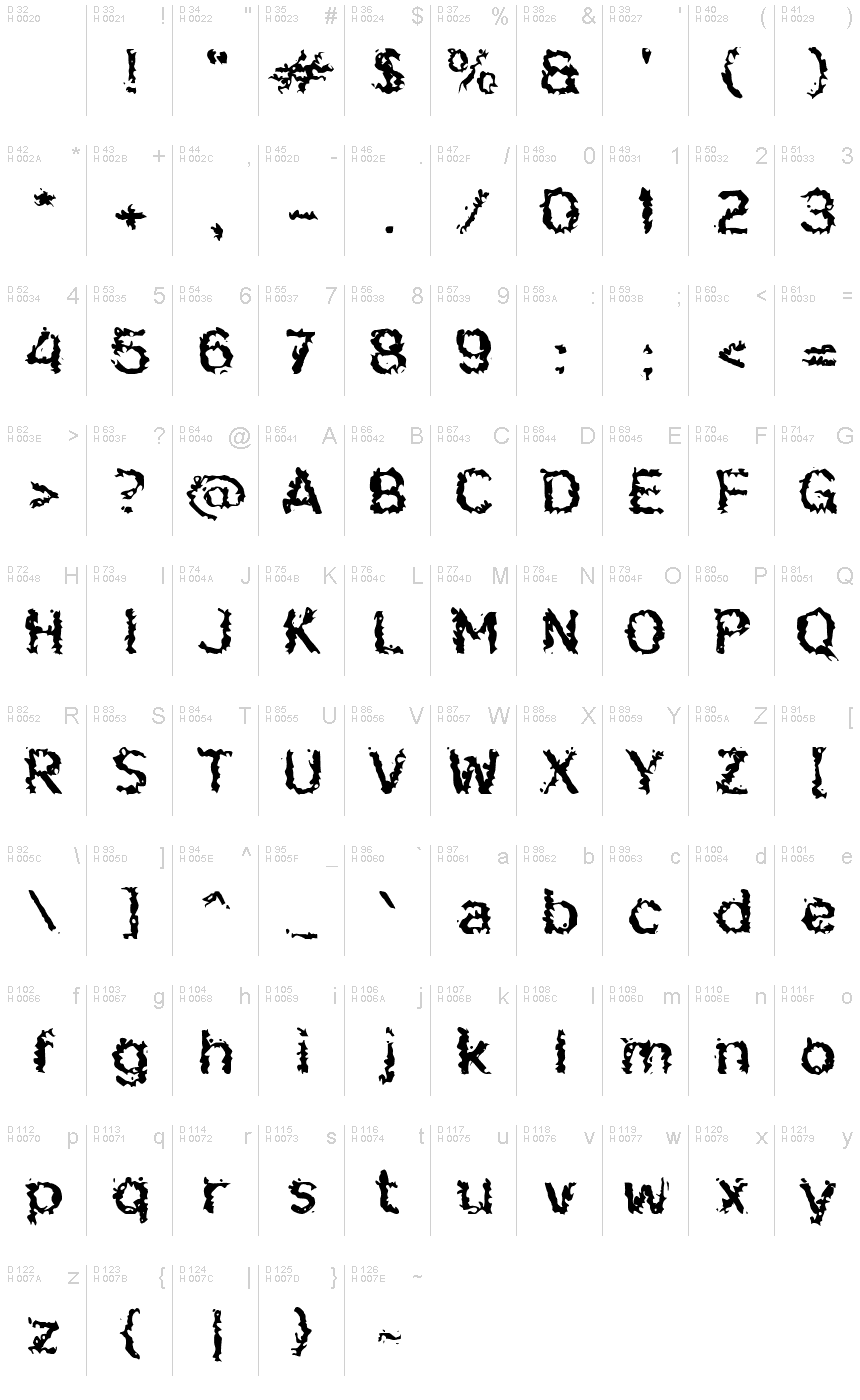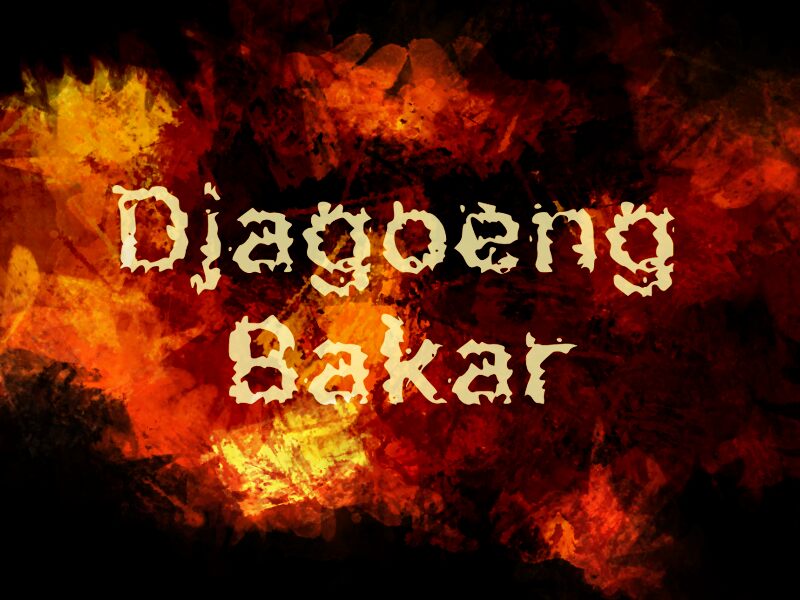
Djagoeng Bakar
Djagoeng Bakar is a vibrant display font designed by Wahyu Eka Prasetya. With its distorted and unique letterforms, Djagoeng Bakar is perfect for creating eye-catching titles, logos, and posters. Use it to add a touch of personality to your designs!